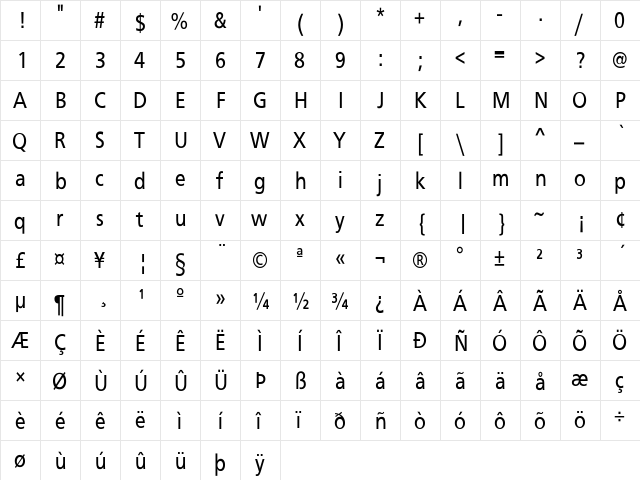
FrutigerCnd-Normal Regular
Design Context for FrutigerCnd-Normal Typeface
FrutigerCnd-Normal offers clean, dependable letterforms without strong stylistic allegiance, making it a practical choice for designers who need flexibility.
Pro Tip: Use FrutigerCnd-Normal in both headline and body roles to test its range before committing to a single application.